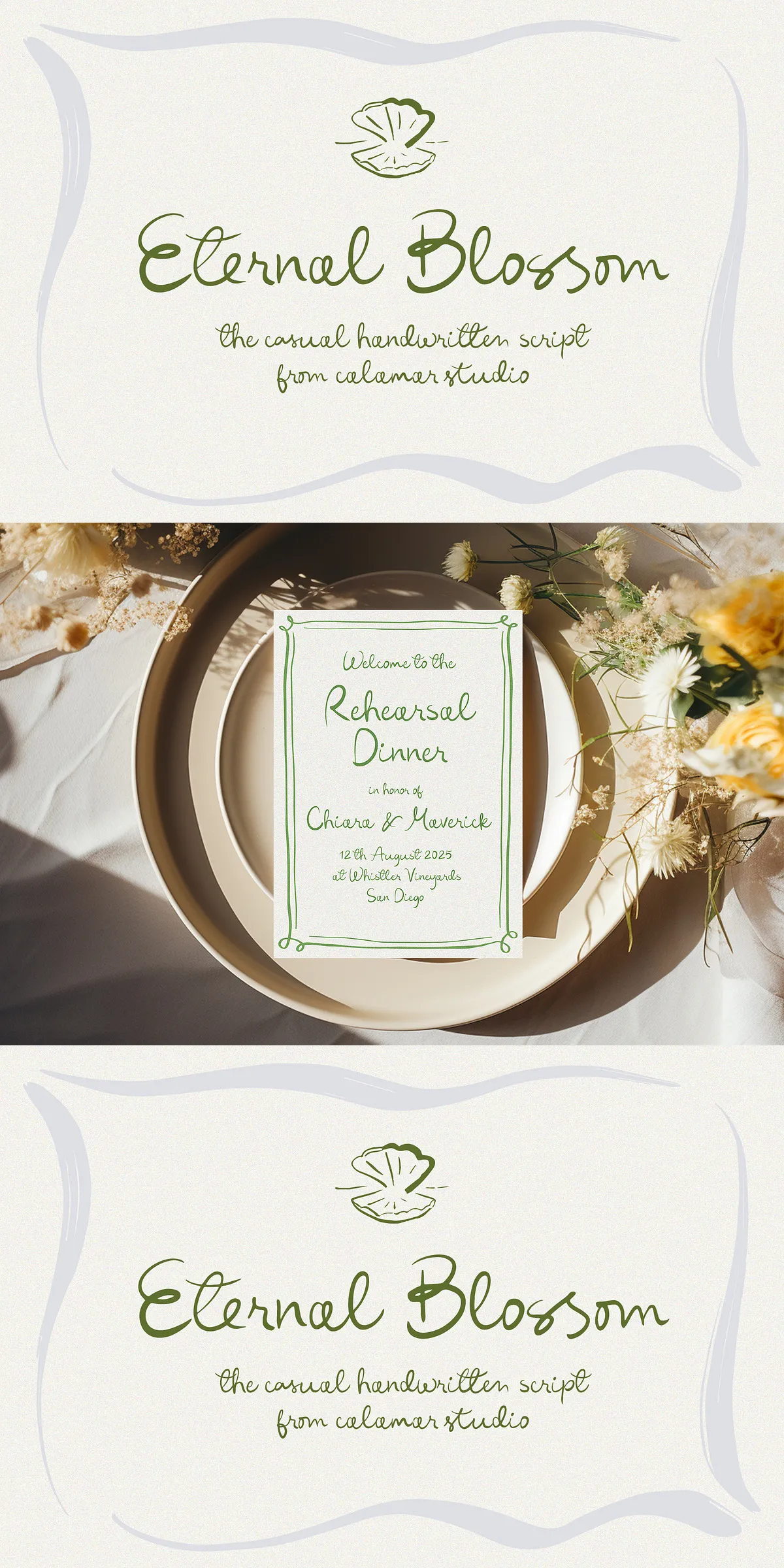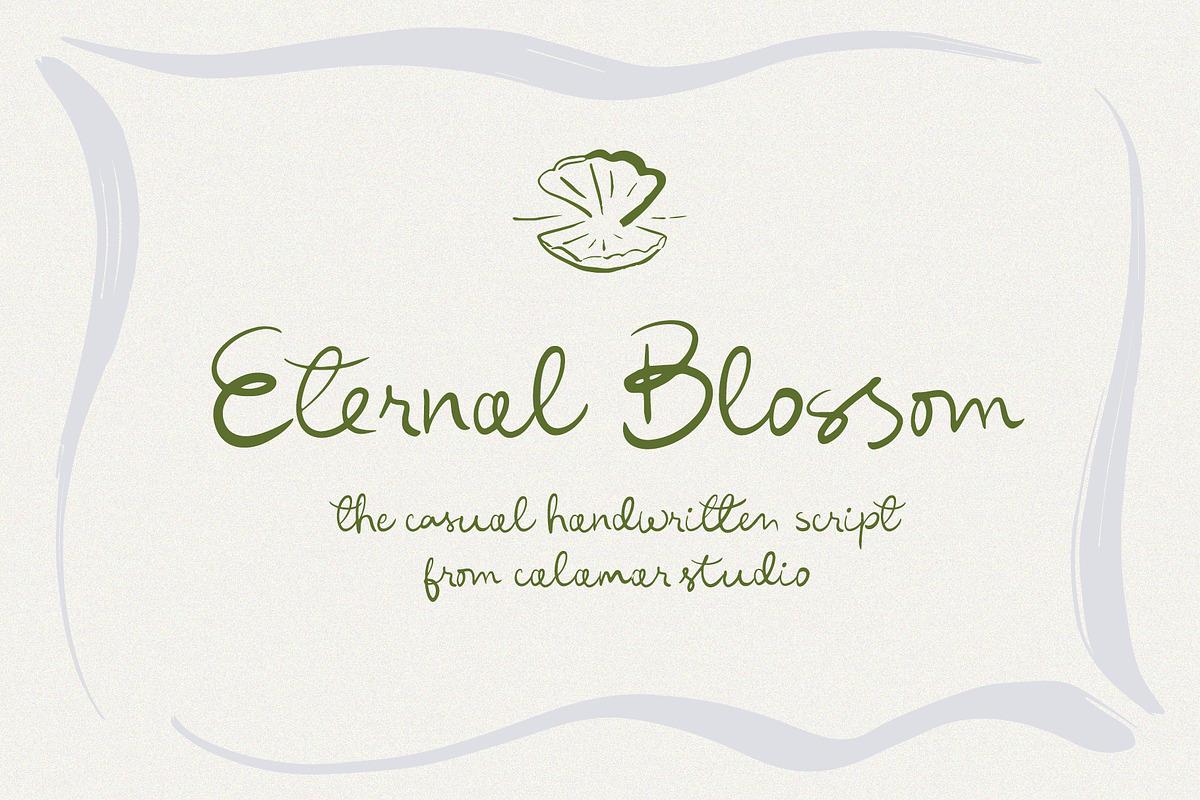
Make your designs unforgettable with Eternal Blossom Font – a fresh, stylish handwritten script engineered for the modern creative. Designed to capture the warm, intimate feel of real penmanship, this font delivers expressive curves, soft transitions, and natural flow that elevate every word into a work of art. Whether you’re crafting invitation suites, designing Instagram posts, creating wall art, or building brand identity, Eternal Blossom brings timeless charm with a contemporary edge.
Why Eternal Blossom Stands Out in 2024–2025
The wedding industry is embracing personal, heartfelt aesthetics — and Eternal Blossom is the perfect font to match that trend. Its delicate yet confident strokes radiate emotional depth, making it ideal for wedding ceremonies, engagement announcements, and anniversary celebrations. But its appeal isn’t limited to romance. The modern, clean feel also excels in lifestyle branding, social media content, editorial layouts, and digital product design.
Rich Typographic Features for Maximum Creative Freedom
Eternal Blossom isn’t just beautiful — it’s designed for professional use. With a full suite of advanced typographic features, you get the tools to create unique, layered compositions:
- Full Uppercase & Lowercase Characters – Comprehensive coverage with seamless ligatures that create fluid, natural-looking connections between letters.
- Ligatures & Alternates – Access over 50 ligature combinations and 30+ alternate glyphs via OpenType features. Use them to create dynamic, custom text flows without manual adjustments.
- Numbers & Punctuation – Includes fully styled digits, fractions, and punctuation marks that match the visual tone of the script — no jarring breaks in design.
Perfect for Every Creative Project
From the first draft to final publication, Eternal Blossom performs flawlessly across every medium:
Wedding & Event Design
Create stunning invitations, RSVP cards, menus, seating charts, and ceremony programs that feel handcrafted and deeply personal. Its elegant rhythm gives even simple phrases an air of luxury and refinement.
Social Media & Content Creation
Ideal for Instagram quotes, Pinterest pins, YouTube thumbnails, and story graphics. Its expressive style grabs attention and encourages engagement — perfect for wedding planners, lifestyle influencers, and boutique brands.
Branding & Identity
Build a distinctive visual identity for premium products, spas, boutiques, or creative studios. Eternal Blossom adds authenticity and warmth to logos, business cards, packaging, and web headers.